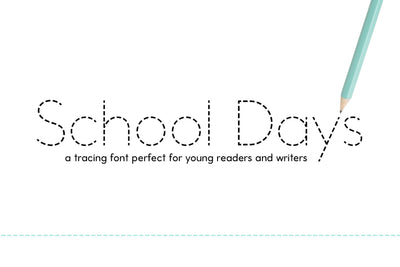
School Days Dash - Tracing Font for Handwriting Practice
School Days Dash is a tracing font perfect for handwriting practice, teachers, students, worksheets, workbook pages and more!